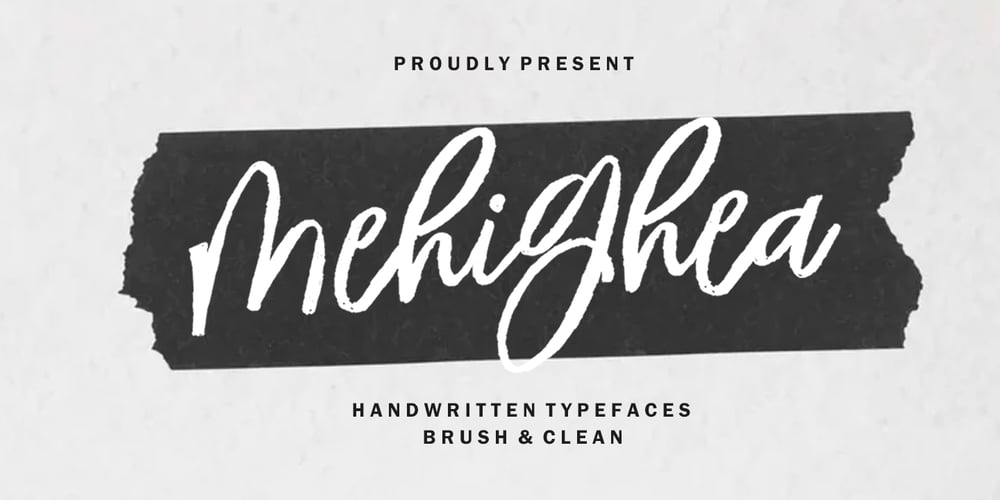
Mehighea Font Family was designed by Naufal Paramata and published by Youngtype. Mehighea contains 2 styles and family package options. Mehighea Regular and Mehighea Clean are modern font sets featuring an organic, dynamic and energetic style. They can be used for a variety of purposes, such as titles, signatures, logos, correspondence, wedding invitations, letterheads, nameplates, labels, newsletters, posters, badges and much more.To enable the OpenType Stylistic alternative, you need a program that supports OpenType features such as Adobe Illustrator CS, Adobe Indesign & CorelDraw X6-X7, Microsoft Word 2010 or a later version.Thank You:)